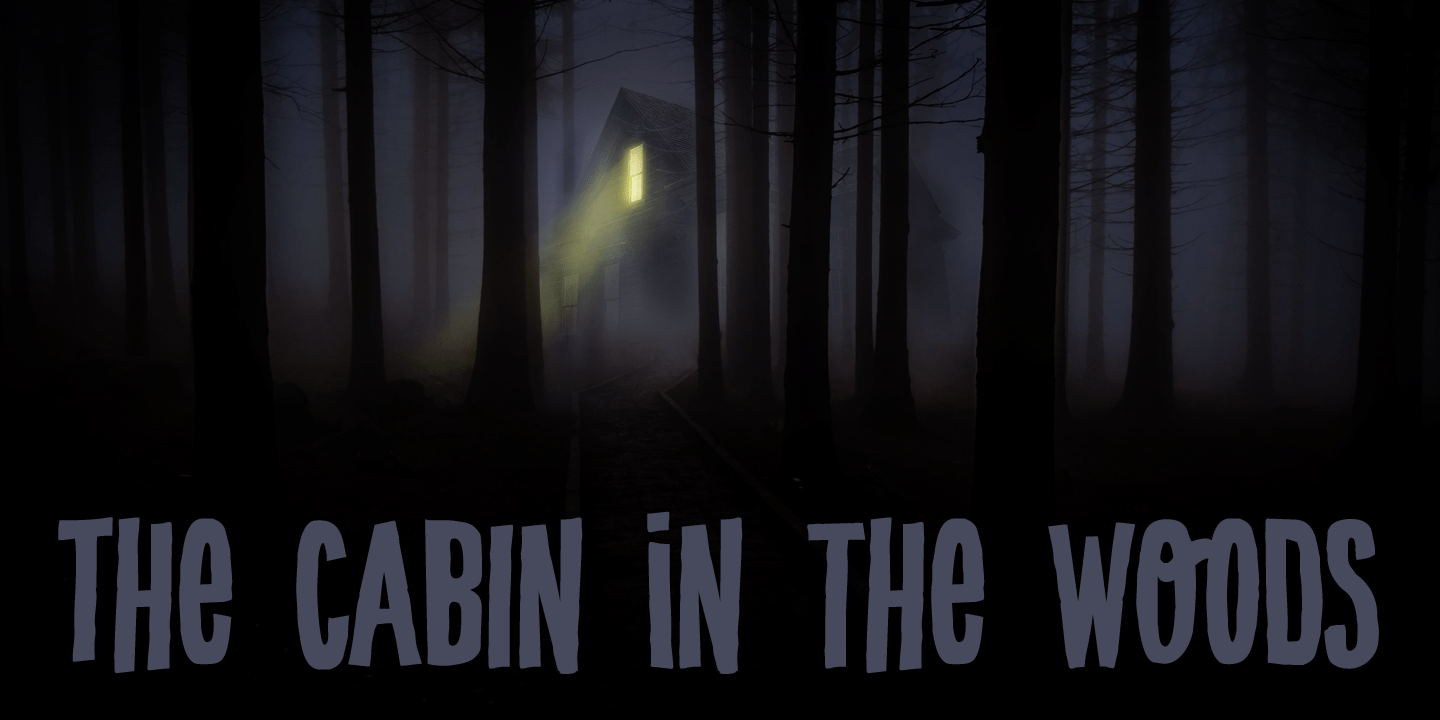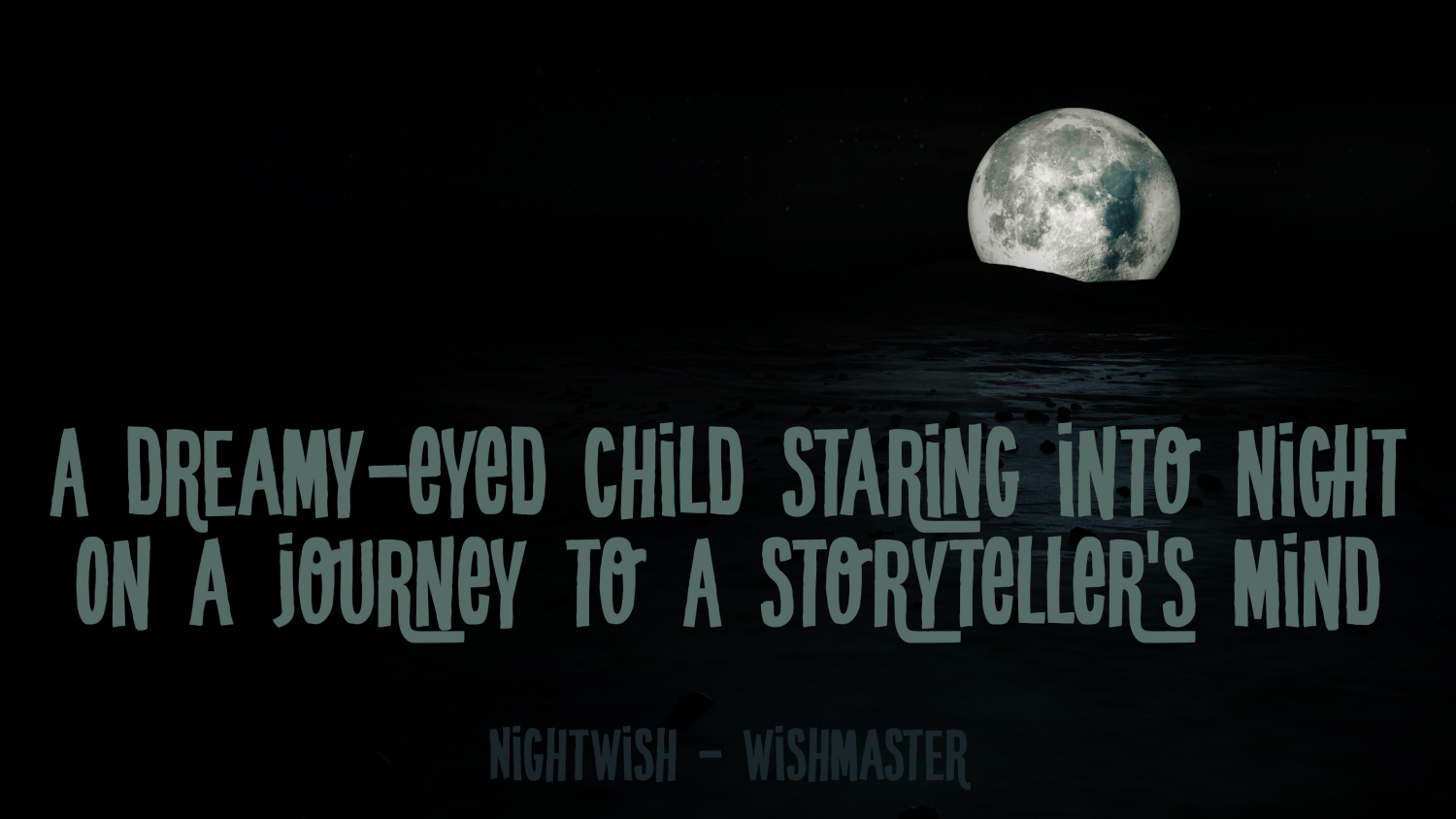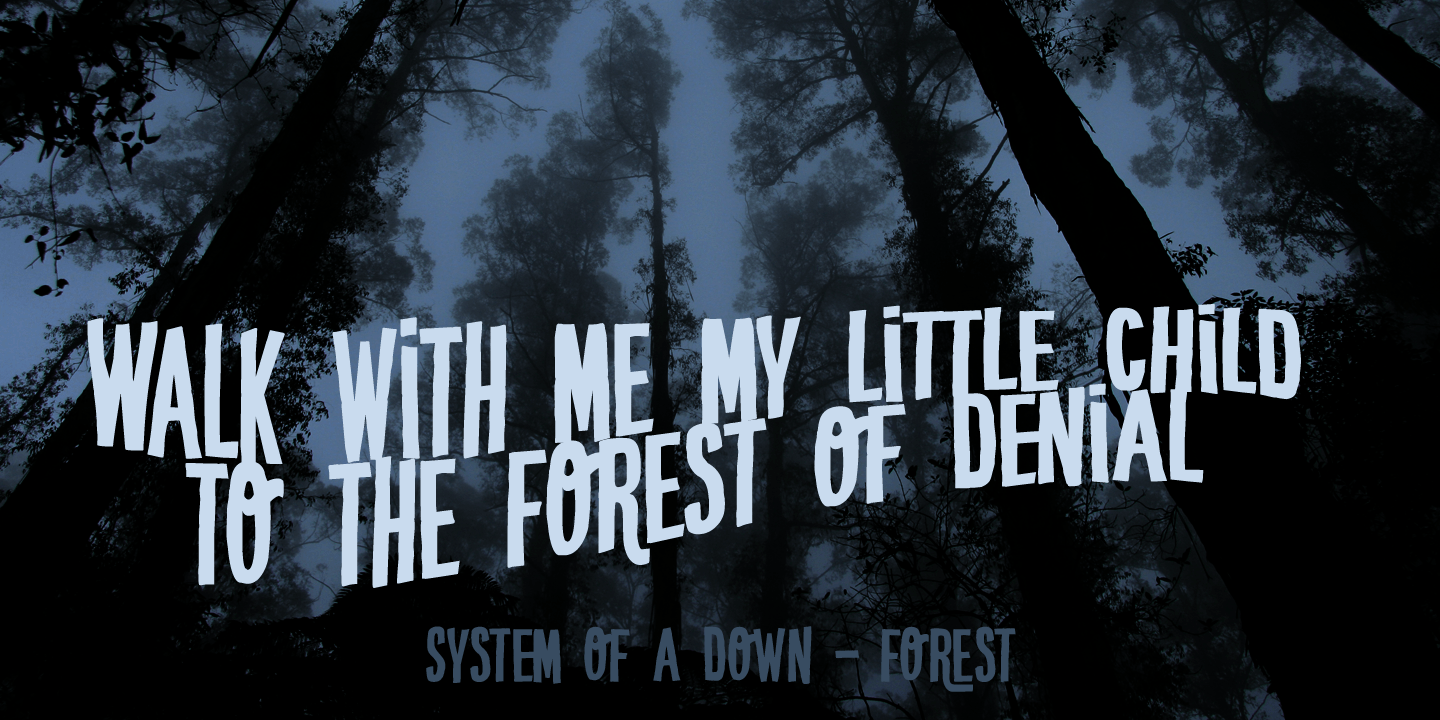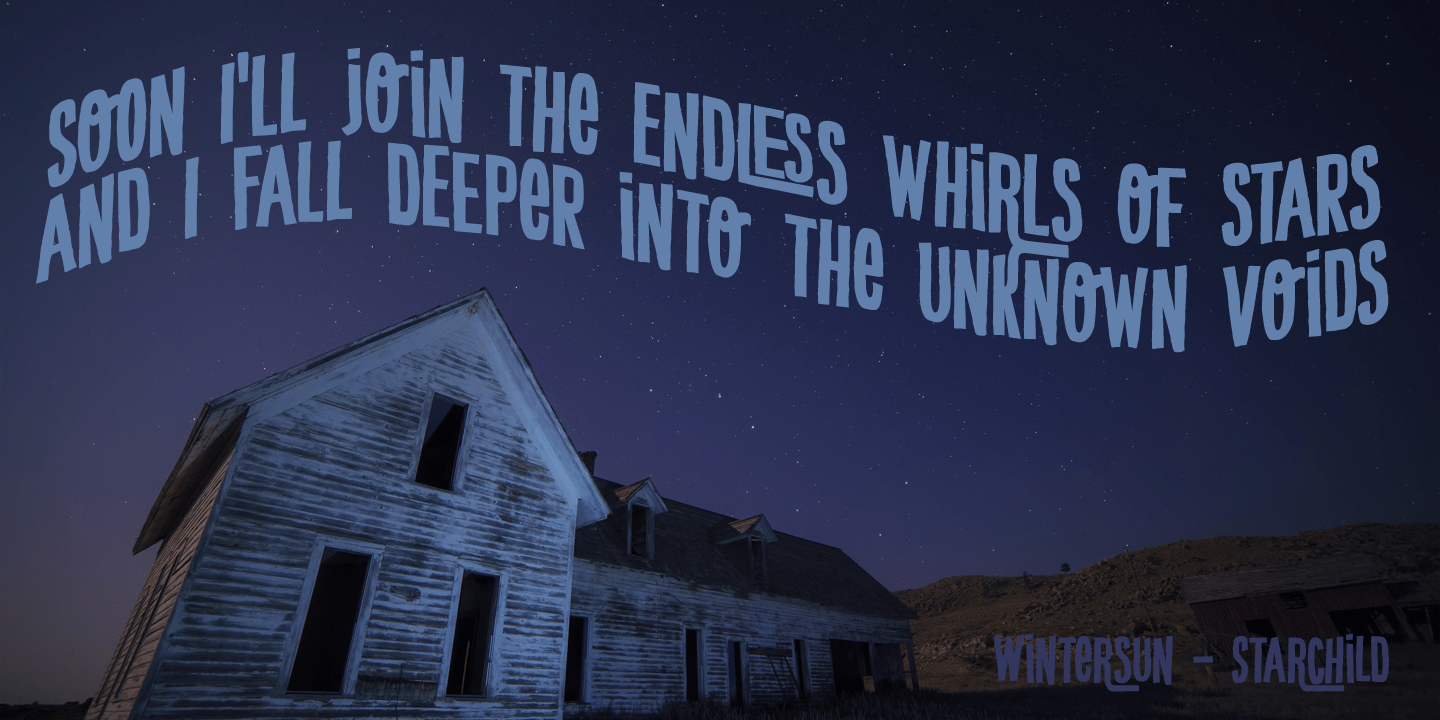
Crypt
Crypt is a seemingly lovely font that will look good in just about any design. But if you take a closer look, then Crypt is actually quite a scary font: it has jagged edges and a sinister undertone, making the letters jump from your computer and eat you alive! Whoohahaha?!!
No, it won't eat you, I?m just kidding. I just threw that in for some dramatic effect in an otherwise quite boring piece of text.
Use Crypt for book covers, posters, product packaging and magazines. I promise you that the result will be quite haunting.
Needless to say, Crypt comes with an otherworldly amount of diacritics.